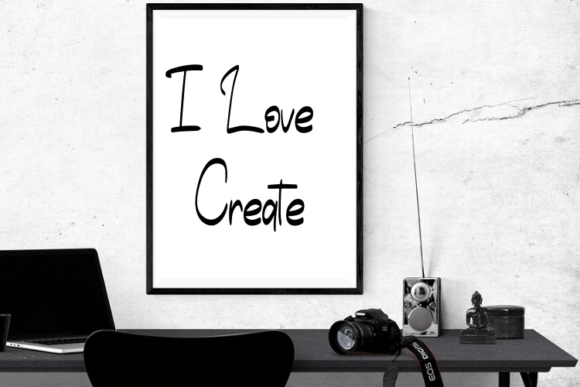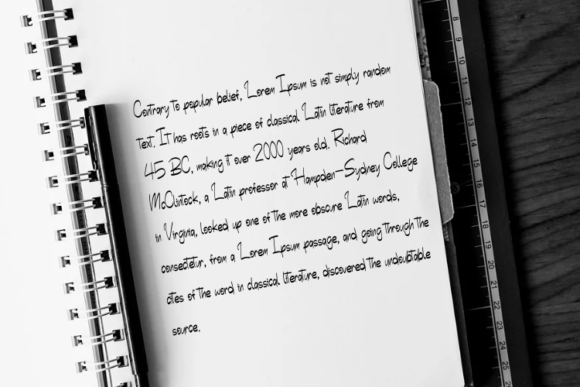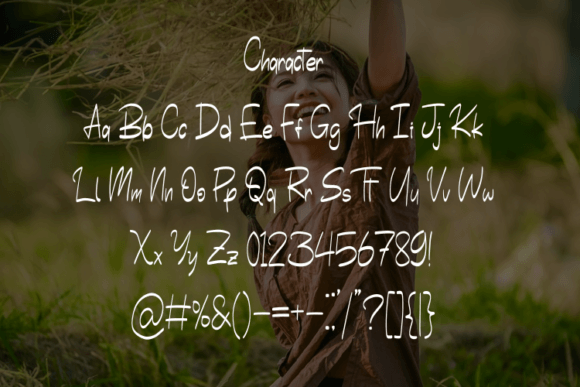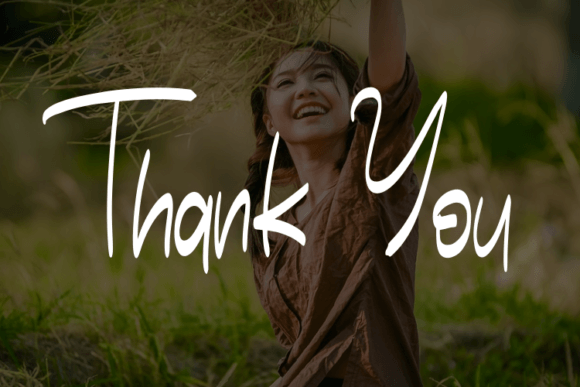
About My Happy Font
Introducing “My Happy,” a captivating script typeface that effortlessly combines simplicity with a modern flair. This versatile typeface is the perfect choice for infusing elegance and a touch of luxury into your design projects, be it for sophisticated logos, captivating book or movie title designs, fashion brands, magazines, clothing labels, fonts, quotes, and beyond.
“My Happy” is more than just a font; it’s a design asset that adds a layer of refinement and contemporary charm to your work. Its clean lines and fluid strokes give it a timeless quality that transcends design trends, ensuring that your creations remain fresh and engaging for years to come.
One of the standout qualities of “My Happy” is its adaptability. Whether you’re crafting a logo for a high-end brand, designing a magazine cover, or creating stylish apparel, this typeface seamlessly integrates into a wide range of design contexts, elevating each project with its understated sophistication.
This typeface’s allure extends effortlessly from print to digital media. From the pages of a beautifully designed book to the sleek interface of a fashion-forward website, “My Happy” shines in every setting. Its legibility ensures that your message is communicated clearly and effectively, while its innate elegance adds a captivating visual appeal.
What sets “My Happy” apart is its versatility. It’s a font that effortlessly transforms your ideas into reality. With its user-friendly features, you have the creative freedom to customize your text, ensuring that each design is a true reflection of your vision.
“My Happy” is more than just a typeface; it’s a creative companion that empowers you to produce exceptional designs, whether you’re a seasoned professional or just embarking on your design journey. It consistently delivers the perfect balance of simplicity and modernity.
In conclusion, “My Happy” is not just a font; it’s a design asset that enhances your creative toolkit. Embrace its simple yet modern aesthetic, and let it inspire you to create stunning and luxurious designs that capture the essence of elegance and sophistication. With “My Happy” by your side, your design projects will radiate timeless beauty and captivate audiences across various mediums.